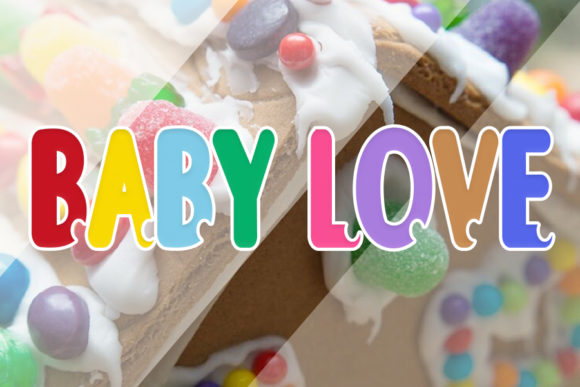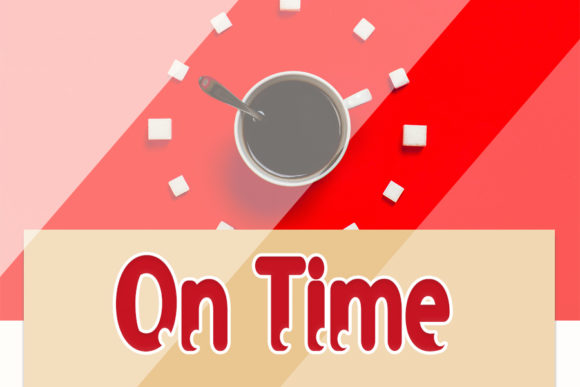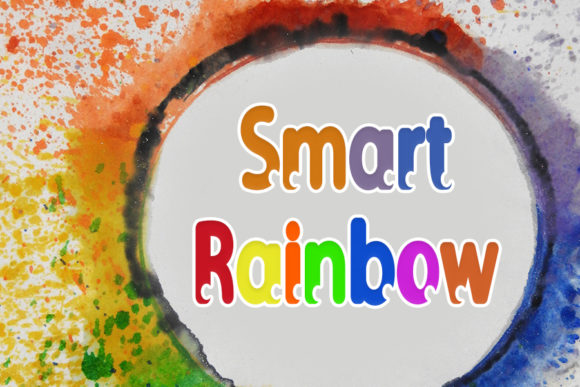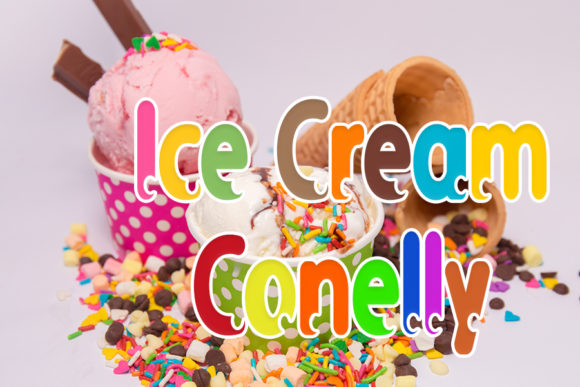
The Perfect Pop of Personality: Balloon Font
Remember that moment when you stumbled upon the perfect font to bring your design to life? For many of us, it’s a feeling that’s hard to describe, but impossible to forget. The thrill of discovering a font that perfectly captures the essence of our creative vision is a feeling we all strive for as designers. And, for those who have been searching for that elusive ‘wow’ factor, we’re excited to introduce you to the Balloon Font – a charming display font that’s about to become your new go-to.
With its timeless style and playful vibe, the Balloon Font is the perfect addition to any design project that requires a casual touch. Whether you’re creating logos, greeting cards, branding materials, or social media posts, this font is sure to bring a smile to your audience’s face. As designers, we’re always on the lookout for fonts that can add a unique personality to our work, and the Balloon Font is undoubtedly a valuable addition to any font collection.
Balloon Font Key Features
- Font Family: Balloon Font is a unique, handwritten font family designed to resemble handwritten notes or balloons.
- Unique Characteristics: The Balloon Font features an organic, playful feel with uneven letter spacing, subtle imperfections, and a mix of uppercase and lowercase letters.
- Font Style Variations: The font family includes multiple styles, including regular, bold, italic, and bold italic, allowing for versatility in design applications.
Designer Review: Balloon Font
Overall, I’m impressed with the playful and whimsical vibe of the Balloon Font. ✨ It’s perfect for creating a sense of wonder and excitement in branding, advertising, and even editorial content. The rounded, bubbly shapes are sure to catch attention and evoke a sense of fun.
- Playful and whimsical design aesthetic ✨
- Perfect for creating a sense of wonder and excitement
- Rounded, bubbly shapes are visually appealing
- Works well in branding, advertising, and editorial content
However, there are some limitations to consider: ⚠️ The font may not be suitable for formal or professional contexts, as it can come across as too playful or immature. Additionally, the font may be difficult to read in smaller sizes, which could impact its usability in certain applications.
The Balloon Font is a fun and creative choice for designers looking to add a playful touch to their work. While it may not be suitable for every project, it’s a great option for those looking to create a sense of wonder and excitement. With some careful consideration of its limitations, this font can be a valuable addition to any designer’s toolkit.
Tips for Getting the Most Out of Balloon Font
1. Use the Balloon Font to add a playful touch to your designs.
2. Experiment with different font sizes and colors to create visual interest.
3. Use the Balloon Font in combination with other fonts to create a unique and eye-catching design.
1. Birthday invitations and party decorations.
2. Social media graphics and advertisements.
3. Wedding invitations and decorations.
Alternatives to Balloon Font
Comic Sans
Comic Sans is a playful and informal sans-serif font that can be used for titles, headings, and other text elements where a friendly tone is desired. It is often used in children’s materials, advertisements, and social media posts. In comparison to Balloon Font, Comic Sans is more cursive and less elaborate, making it a better choice for simpler designs.
Great Vibes is a modern and elegant script font that can be used for titles, headings, and other text elements where a sophisticated tone is desired. It is often used in branding, packaging, and marketing materials. In comparison to Balloon Font, Great Vibes is more refined and less chaotic, making it a better choice for designs that require a sense of luxury and elegance.
Q: What is the recommended font size for Balloon Font?
The recommended font size for Balloon Font is between 12pt and 48pt. At smaller sizes, the font may become difficult to read, while larger sizes can make the text appear cluttered. Experiment with different font sizes to find the optimal balance for your design.